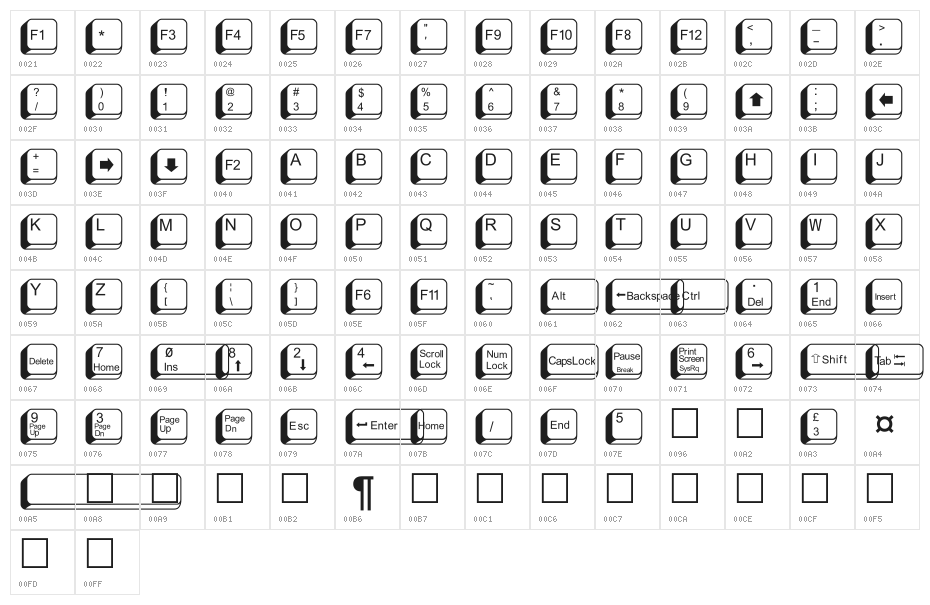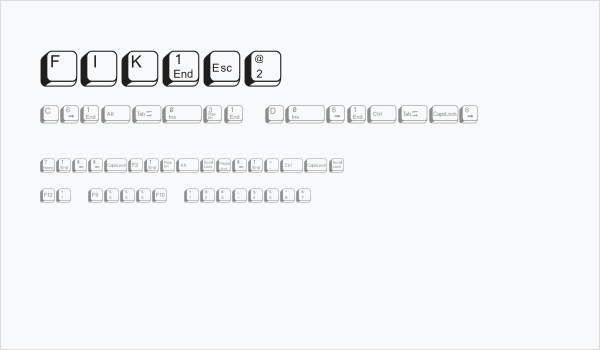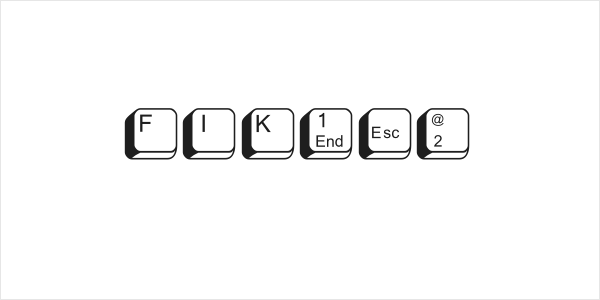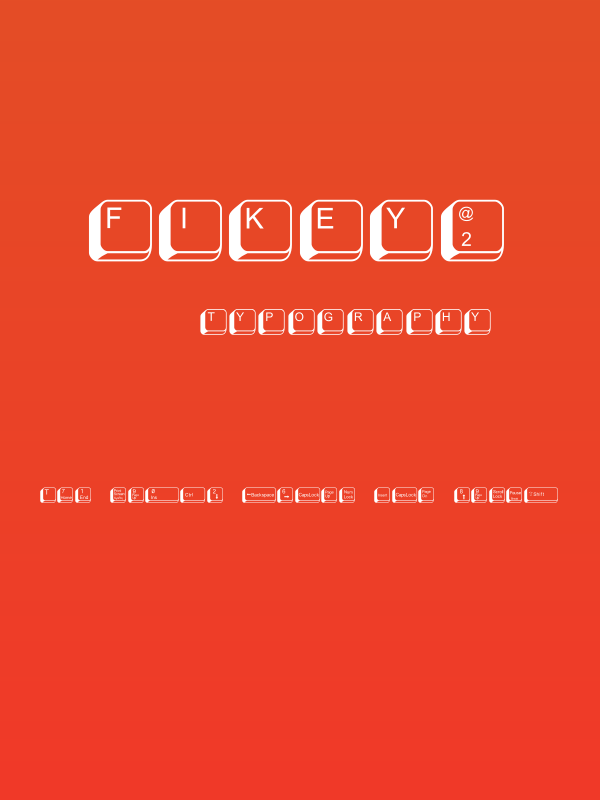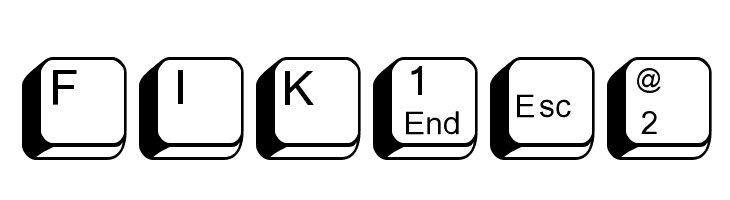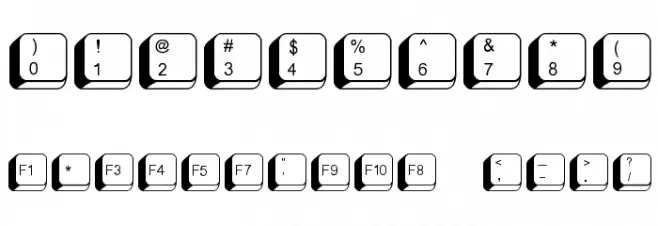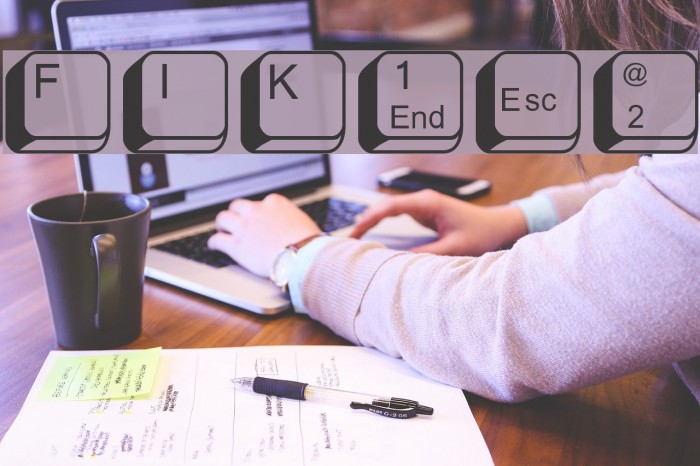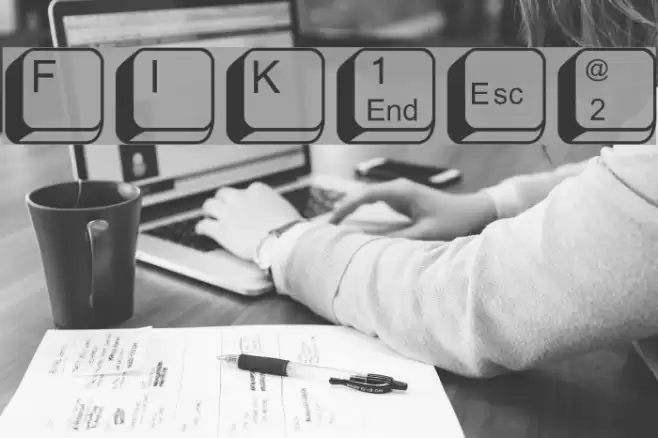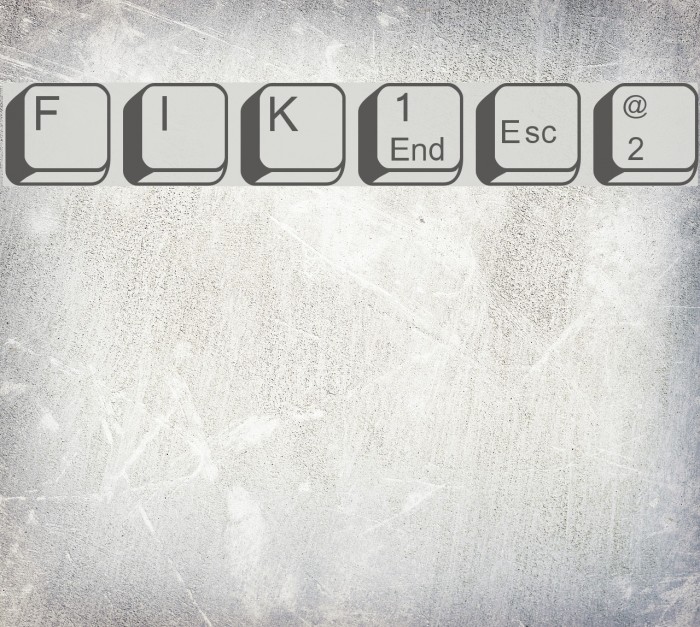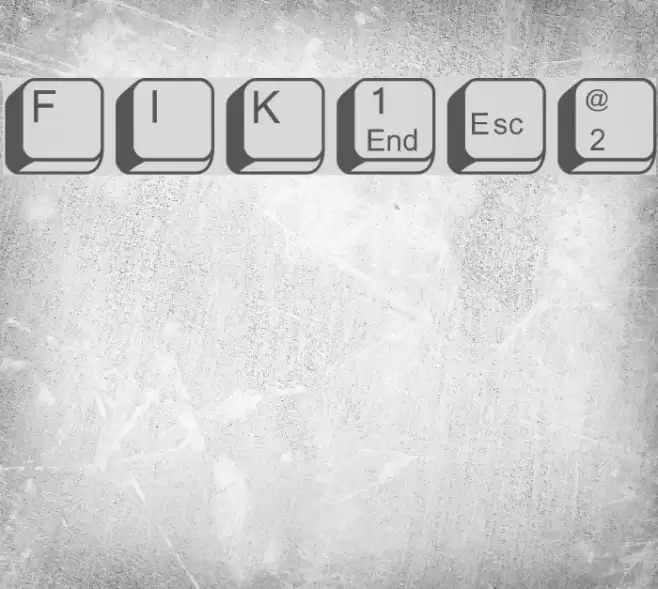
FIKey2 Font
FIKey2 Description
This font is designed to mimic the appearance of keys on a keyboard, with each character enclosed in a square that resembles a keycap. The characters are bold and have a three-dimensional effect, giving them a shadowed look. The style is consistent across both uppercase and lowercase letters, as well as numbers and special characters. This design is reminiscent of retro computer keyboards, providing a nostalgic feel. The font is highly legible and each character is distinct, making it suitable for designs that require a tech-savvy or vintage computer aesthetic.
| Overall Style | Retro, Tech |
| Use Case | Logos, Headlines, Posters |
| Proposed Projects | Ideal for tech-themed designs, retro computer graphics, educational materials about computing, or any project that requires a nostalgic or technological feel. |